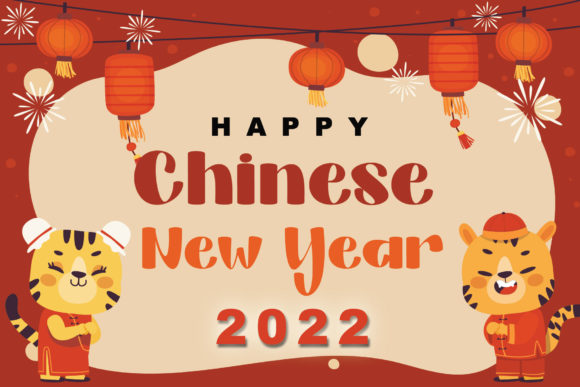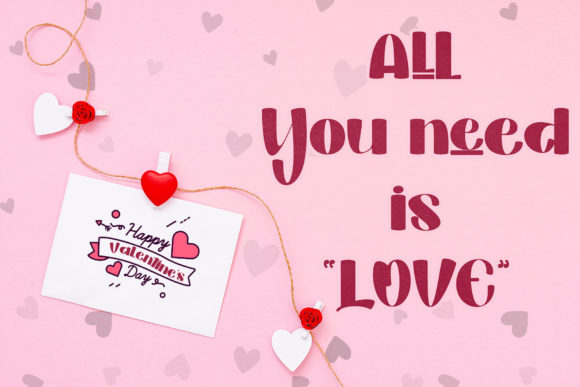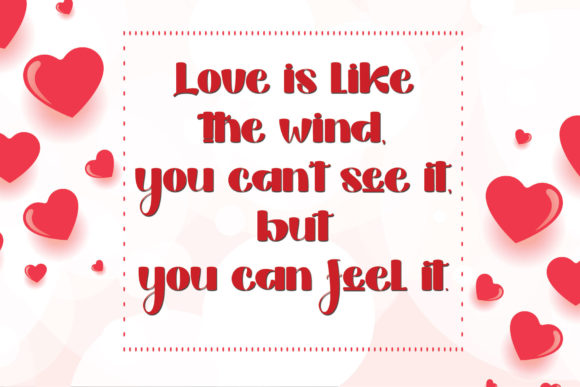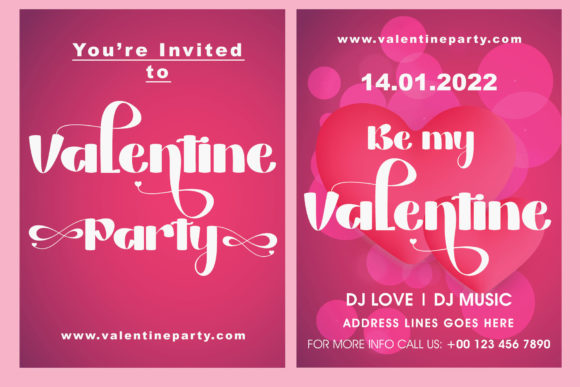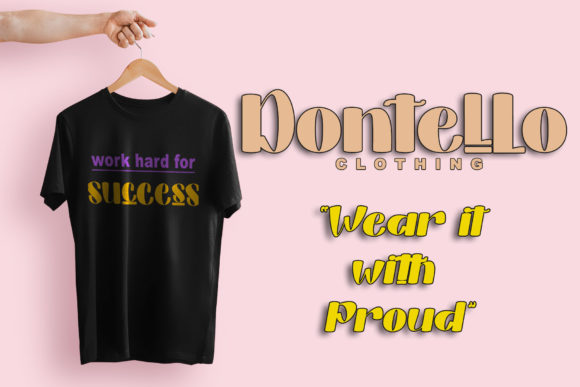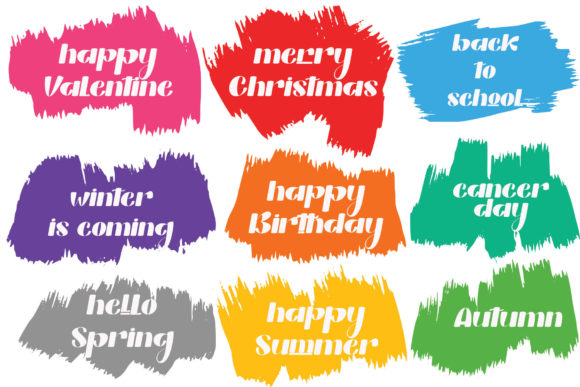
Introduction to Rellya Font
As designers, we’ve all been there – staring at a blank canvas, trying to bring our creative vision to life. And then, it happens – a spark of inspiration strikes, and we know exactly what we need to make our design truly shine. For many of us, that spark is often ignited by the perfect font. Today, we’re excited to introduce you to the Rellya Font, a high-quality display font that’s sure to make a lasting impression on your creative project.
With its charming and eye-catching design, the Rellya Font is a valuable resource for designers looking to add a touch of elegance to their work. Whether you’re working on a logo, a poster, or a brochure, this font is sure to elevate your design to the next level. And with its transparent background, you can easily use it on any background, making it a versatile and convenient design resource.
But what really sets the Rellya Font apart is its PUA encoding, which allows you to access all of its amazing glyphs and ligatures with ease. This means you can customize your design to perfection, without any hassle. So why settle for an ordinary font when you can have the extraordinary Rellya Font? Download it now for free and take your designs to new heights!
Key Features of Rellya Font
- Comes in a single size, making it easy to use in a variety of design applications.
- Features a unique, modern design style that is perfect for digital and print projects.
- Designed with high-resolution compatibility, suitable for use in projects up to 300 DPI.
- Perfect for designers looking for a high-quality, free font to enhance their creative project.
Honest Review: Rellya Font
I recently stumbled upon the Rellya Font, a high-quality design resource that’s perfect for creative projects. I was excited to dive in and see what it had to offer.
What works well: ✨ The font is incredibly versatile, making it suitable for a wide range of applications, from branding and marketing materials to digital products and websites. I love how the font’s clean lines and modern aesthetic give it a professional touch.
- Transparent background: This feature allows for seamless integration with any background, giving designers the flexibility they need to create stunning visuals.
Overall, I’m impressed with the Rellya Font’s potential and its suitability for a variety of design projects. While it may not be perfect, it’s definitely a valuable addition to any designer’s toolkit.
Tips for Getting the Most Out of Rellya Font
1. Use the Rellya Font in combination with a transparent background for a high-quality design.
2. Experiment with different font sizes and colors to create a unique look.
3. Use the Rellya Font in your creative project to add a touch of elegance and sophistication.
Common Use Cases for Rellya Font
1. Wedding invitations and wedding stationery.
2. Business cards and marketing materials.
3. Social media graphics and advertisements.
Can I use the Rellya Font with a transparent background?
Yes, the Rellya Font has a transparent background, making it ideal for use with graphics and designs that require a clear background. This allows you to easily overlay the font on top of images or other design elements, giving you more flexibility and creative control over your design project.